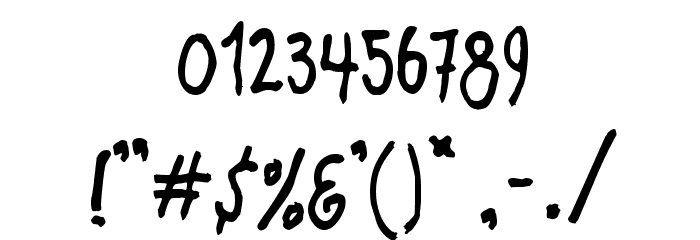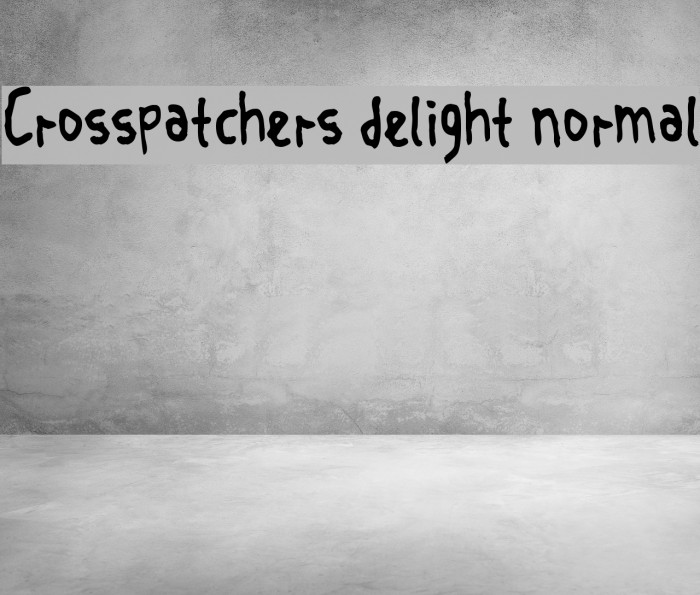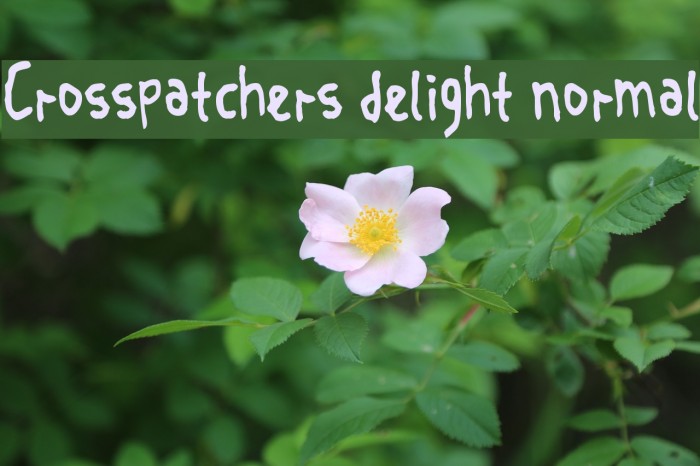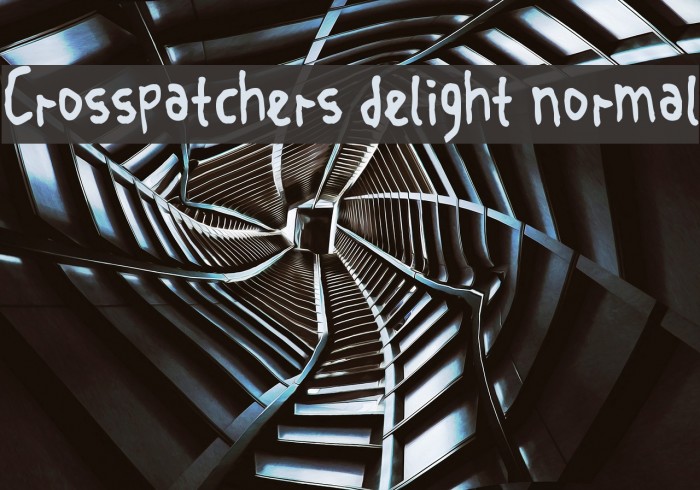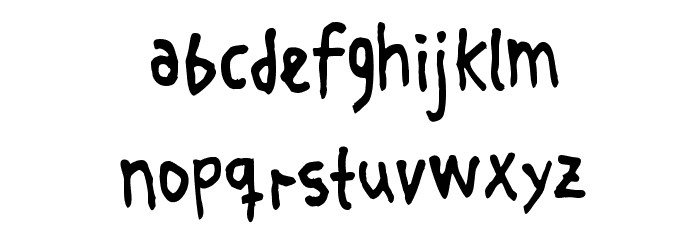
Crosspatchers delight normal Font
Crosspatchers delight normal Description
This font features a playful, hand-drawn style with irregular strokes and a casual appearance. The letters have a slightly uneven baseline, giving them a whimsical and informal feel. The uppercase and lowercase letters are distinct, with the uppercase being more angular and the lowercase more rounded. The numbers and special characters maintain the same quirky style, making this font ideal for creative and fun projects. The overall design is reminiscent of handwriting, adding a personal touch to any text.
| Use Case | Headlines, Logos, Creative projects |
| Proposed Projects | Ideal for children's books, greeting cards, playful branding, and creative posters. |